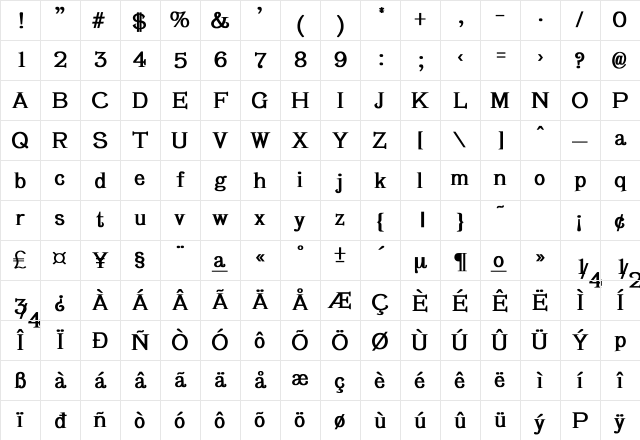
Verena Bold Free Font
Verena Bold
Verena Family
Design Context for Verena
Verena is a composed and adaptable typeface that performs quietly and consistently across a wide range of design contexts. Its bold stroke weight gives it real presence on the page.